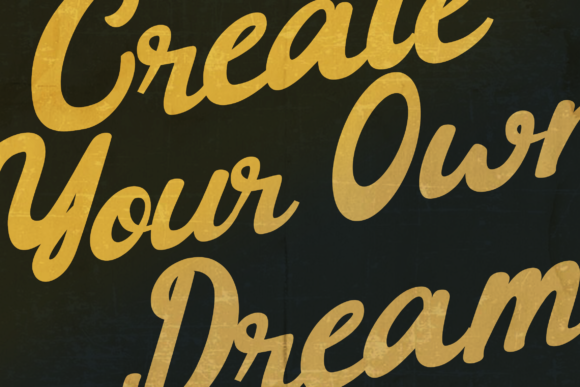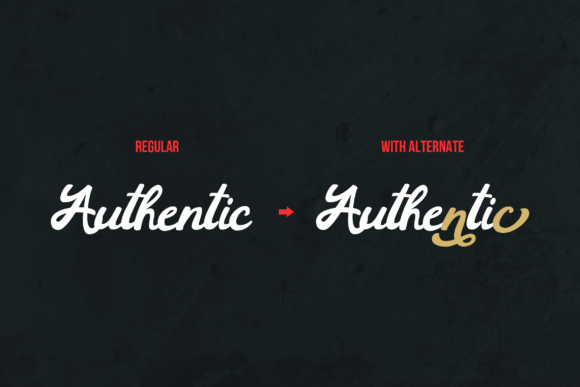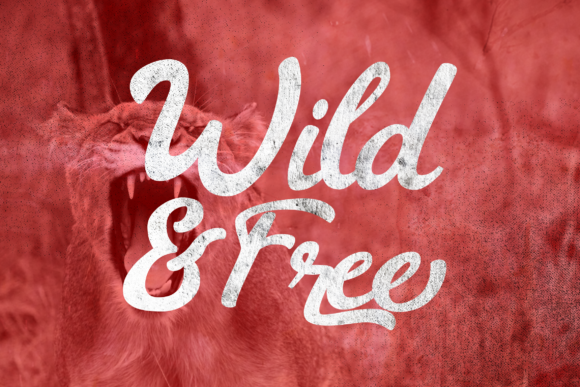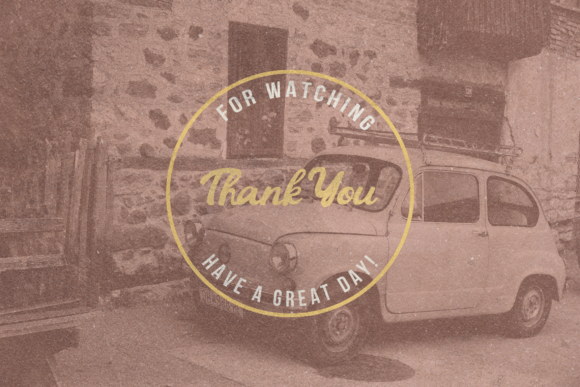
Barney Font
About Barney Font
Barney is a stunning script font with a vintage vibe. Fall in love with its classic style, and turn any design idea into a true standout!